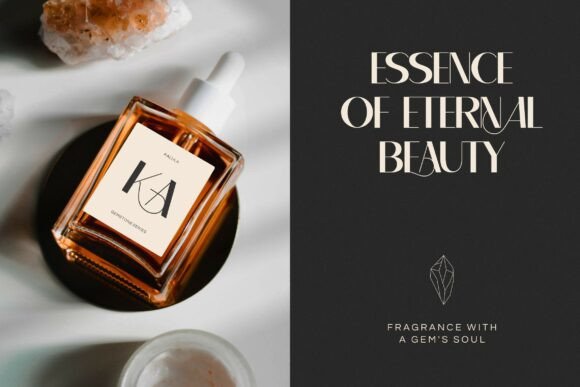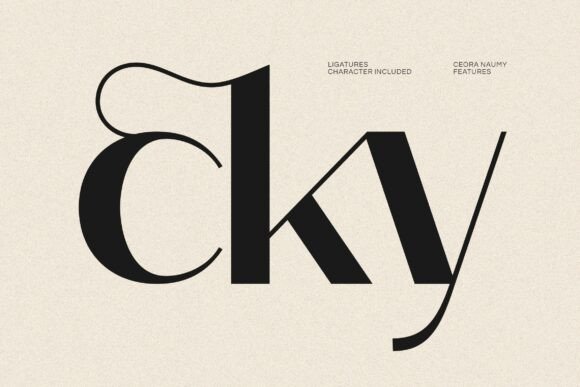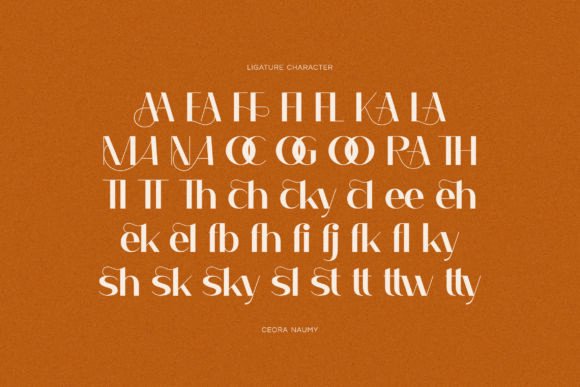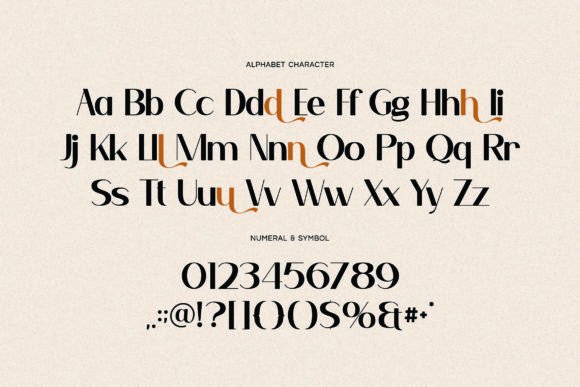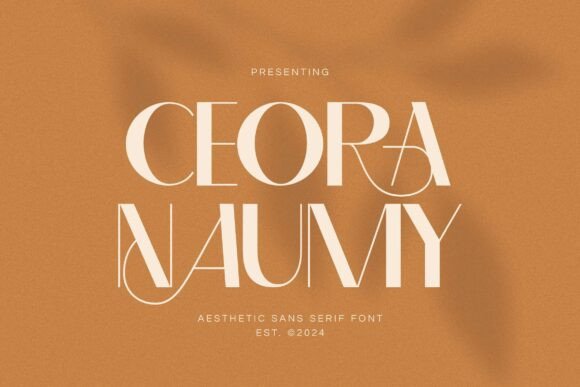
Introducing Ceora Naumy Font: The Epitome of Modern Luxury
In the realm of typography, few fonts manage to strike a balance between modernity and timeless elegance. Ceora Naumy, a cutting-edge aesthetic sans serif typeface, achieves this delicate balance by seamlessly incorporating elements from serif typefaces. This unique blend results in a font that exudes luxury, sophistication, and enchantment, making it the perfect choice for designers and crafters seeking to elevate their projects.
The Unique Characteristics of Ceora Naumy
Ceora Naumy boasts flowing curves and refined serifs that evoke a sense of timeless luxury. Its clean lines and subtle serif-inspired details create a harmonious blend that stands out in both digital and print media. This font’s distinctive features include:
- Flowing Curves: Ceora Naumy’s curves are meticulously crafted to provide a sense of fluidity and movement, adding a touch of dynamism to any project.
- Refined Serifs: The subtle serif-inspired details in Ceora Naumy pay homage to traditional serif typefaces while maintaining a modern, sans serif aesthetic.
- PUA Encoding: Ceora Naumy is PUA encoded, allowing effortless access to all glyphs, swashes, and alternate characters, making it incredibly versatile and user-friendly.
Perfect for High-End Projects
Ceora Naumy is designed to make a statement, making it the ideal choice for high-end projects that demand both beauty and impact. Some of the ideal applications for Ceora Naumy include:
- High-End Fashion Magazines: Ceora Naumy’s luxurious aesthetic and refined features make it perfect for fashion publications seeking to convey a sense of sophistication and style.
- Wedding Invitations: The font’s elegant and enchanting qualities make it an excellent choice for crafting memorable wedding invitations that set the tone for a special day.
- Luxury Product Branding: Ceora Naumy’s modern and sophisticated design makes it an excellent fit for luxury product branding, helping to create a lasting impression on discerning customers.
Elevate Your Work with Ceora Naumy
Ceora Naumy offers designers and crafters the opportunity to elevate their work to new heights. With its unique blend of modernity and timeless elegance, this font is sure to:
- Add a Touch of Sophistication: Ceora Naumy’s refined features and luxurious aesthetic add a touch of sophistication to any project.
- Create a Lasting Impression: The font’s enchanting qualities and distinctive characteristics make it an excellent choice for projects seeking to leave a lasting impression.
- Streamline Design Workflow: Ceora Naumy’s PUA encoding and comprehensive character set make it easy to use and incorporate into any design workflow.
Ceora Naumy is a game-changing font that offers designers and crafters the perfect blend of modernity and timeless elegance. Its unique characteristics, versatility, and luxurious aesthetic make it an excellent choice for high-end projects seeking to make a statement. Experience the essence of modern luxury with Ceora Naumy and elevate your work to new heights.